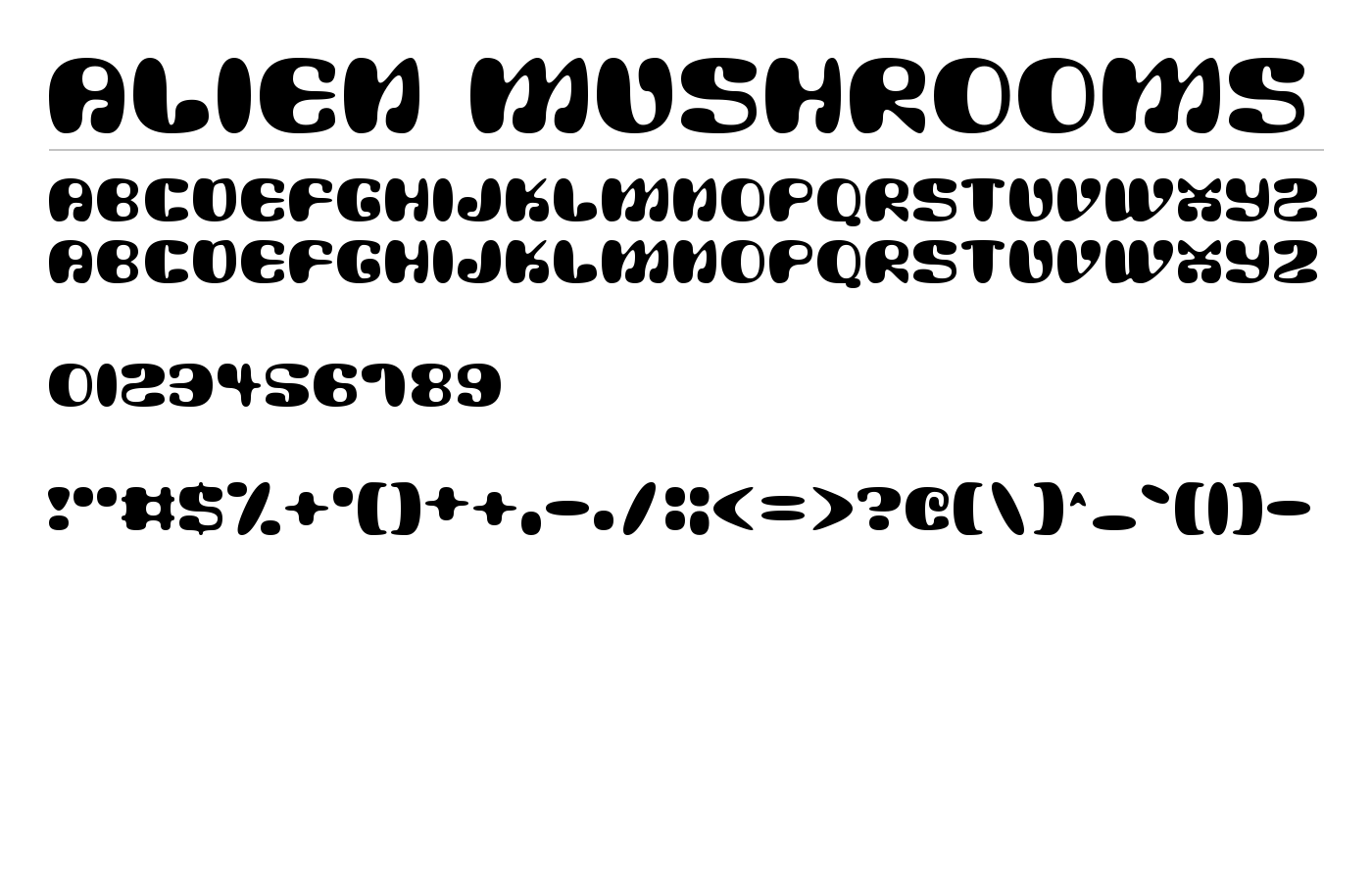
Alien Mushrooms is a playful and bold display font characterized by its chunky, rounded letterforms that evoke a whimsical, retro-futuristic vibe. With its high contrast and quirky shapes, this all-caps typeface works great for eye-catching headlines, logos, and packaging where a fun, unconventional style is desired. Its unique personality makes it ideal for creative projects that want to stand out with a touch of extraterrestrial charm.
Alien Mushrooms Font
About Alien Mushrooms Font